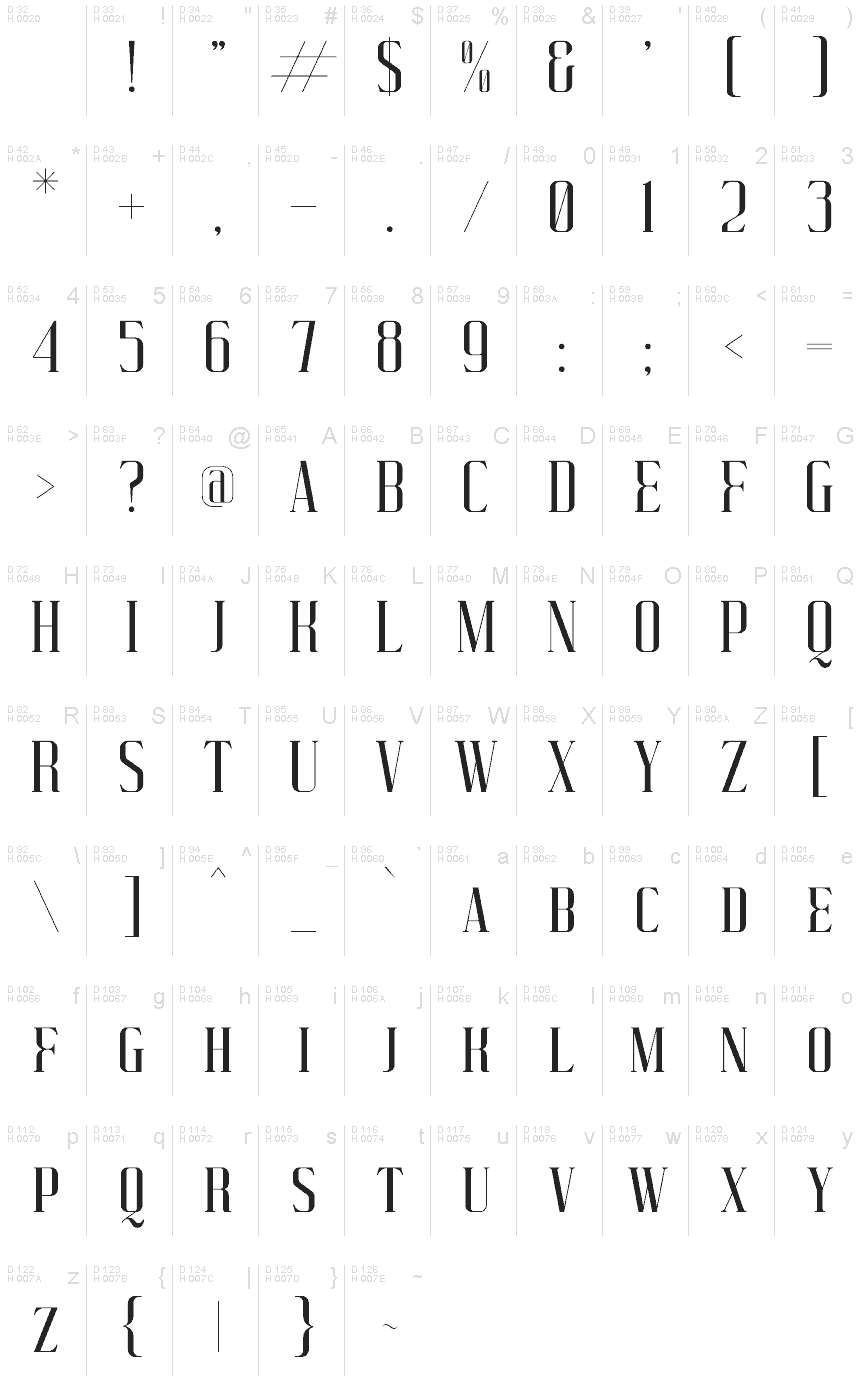
VELAZQUEZ
Velazquez font by Storytype Studio is an elegant and sophisticated typeface that carries modern influences with a refined touch. The high contrast in the design elements gives a sleek appearance to this modern free serif font and its aesthetic as a whole. Both captivating and highly legible, Velazquez demands attention without compromising on readability.